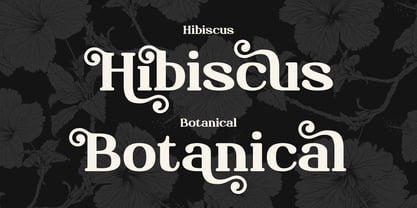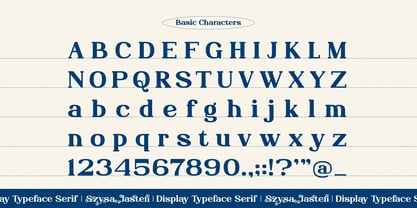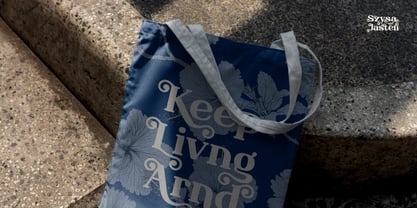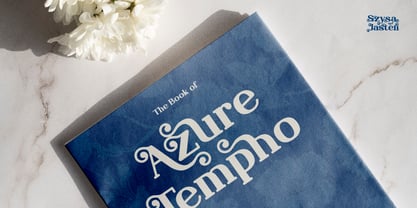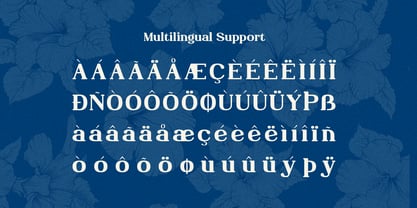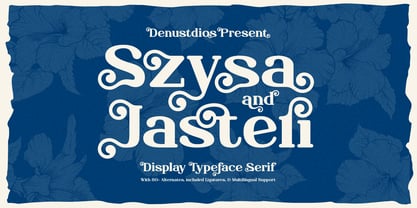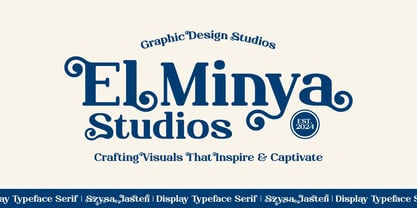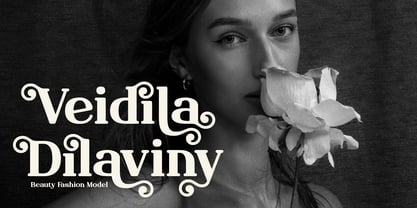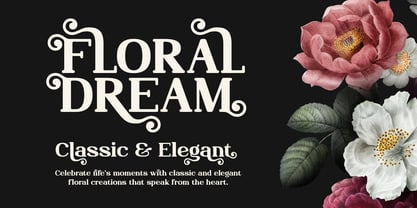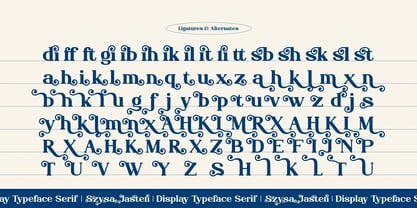
Szysa Jasteri
por Denustudio
La familia tipográfica Szysa Jasteri fue diseñada por Dede Nugraha y publicada por Denustudio. Szysa Jasteri contiene 2 estilos y opciones de paquete familiar. Más información sobre esta familia
Szysa Jasteri | Display Typeface Serif, from Denustudios, suitable for any projects such as: logos, branding projects, homeware designs, product packaging, mugs, quotes, posters, shopping bags, t-shirts, book covers, name card, invitation cards, greeting cards, label, photography, watermark, special events, and all your other lovely projects that need a Display Typeface Serif taste.
• Regular and Italic
• Alternate and Ligature
• Fonts include multilingual support